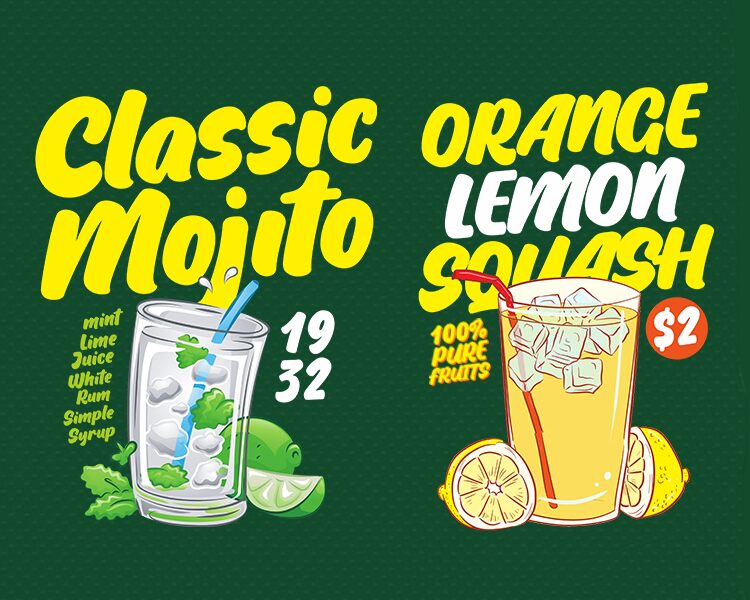
Lemon Round font by Four Lines is a smooth brush font that beautifully combines modernity and creativity. Its bold strokes and continuous flow give a deep sense of energy to each word which makes exceptional lettering designs. The letters also have rounded smooth edges that make them visually appealing even without added decorations.